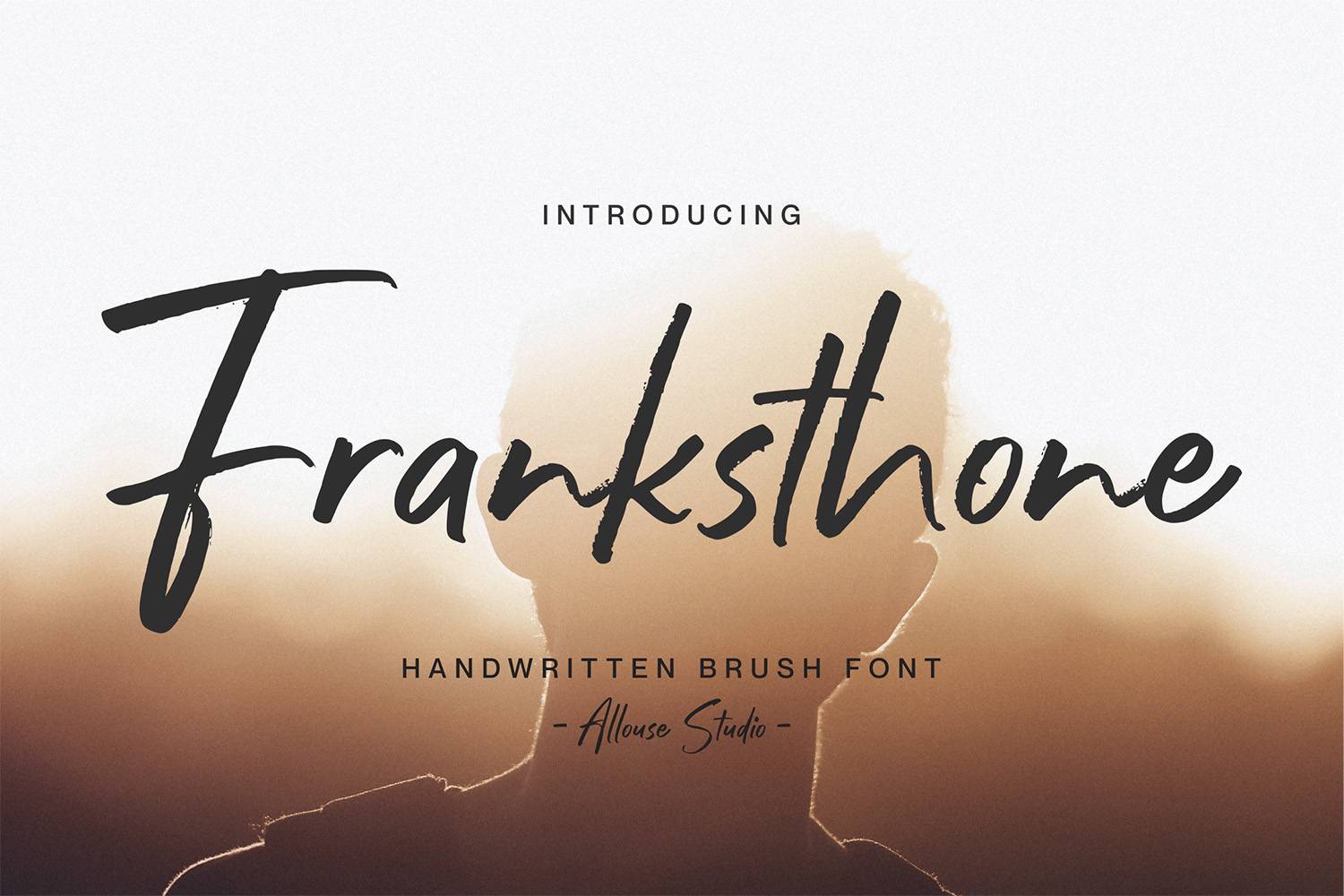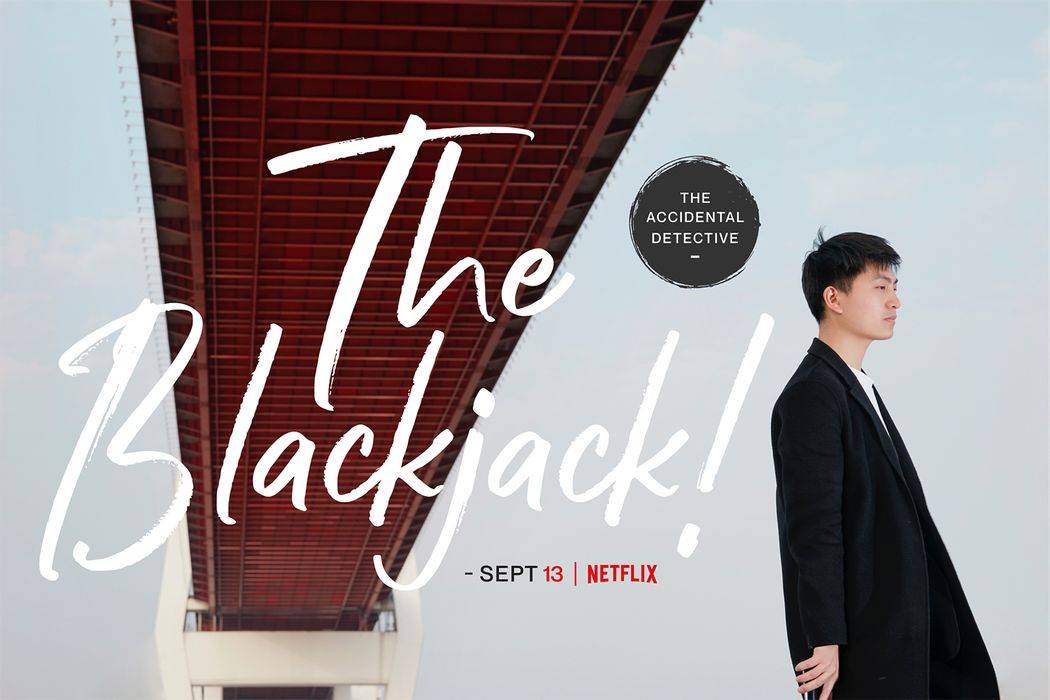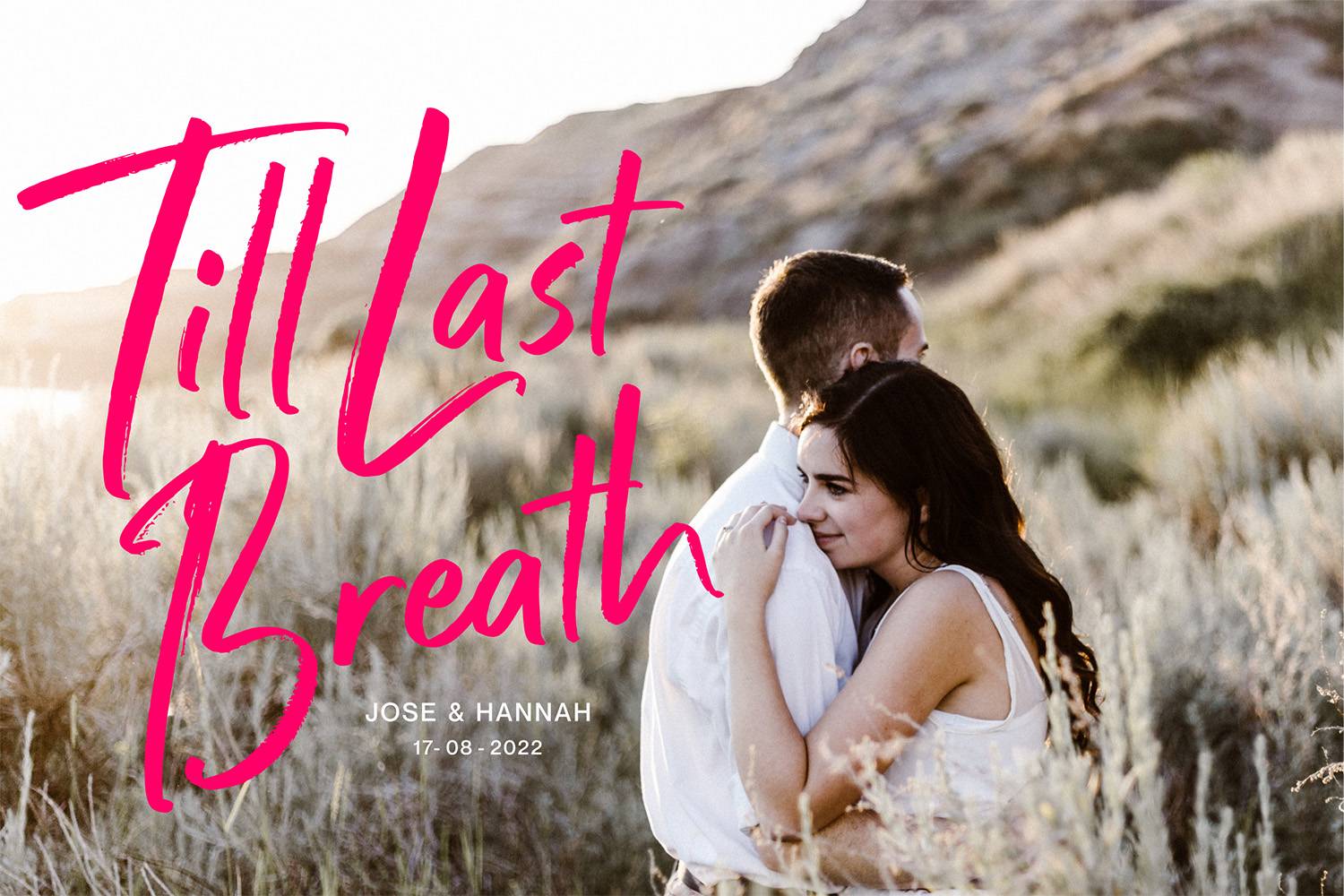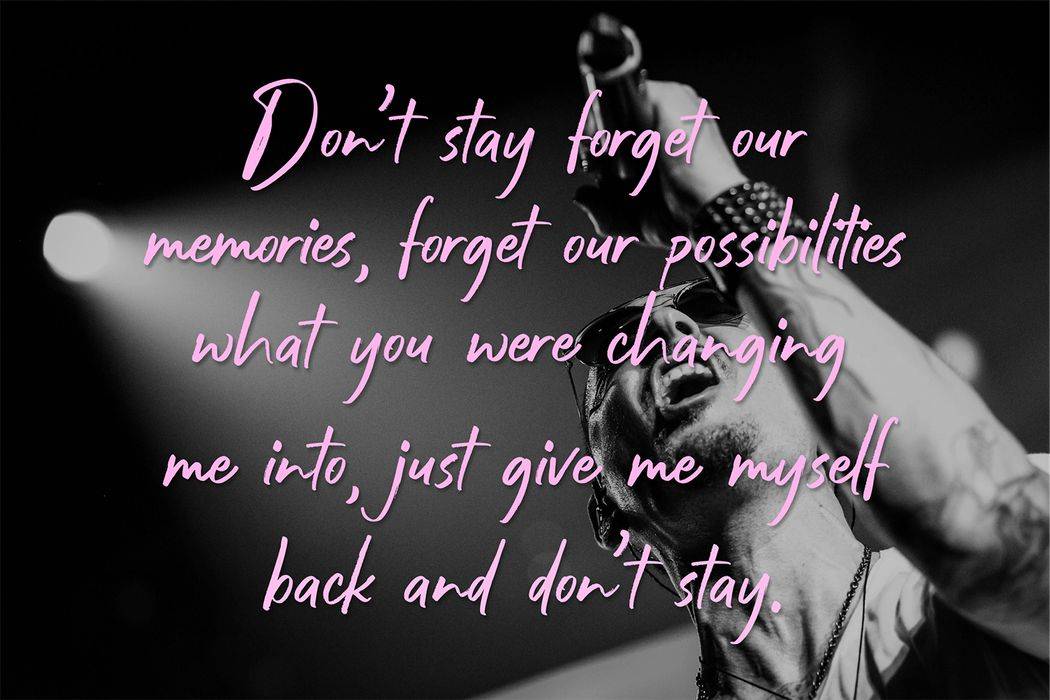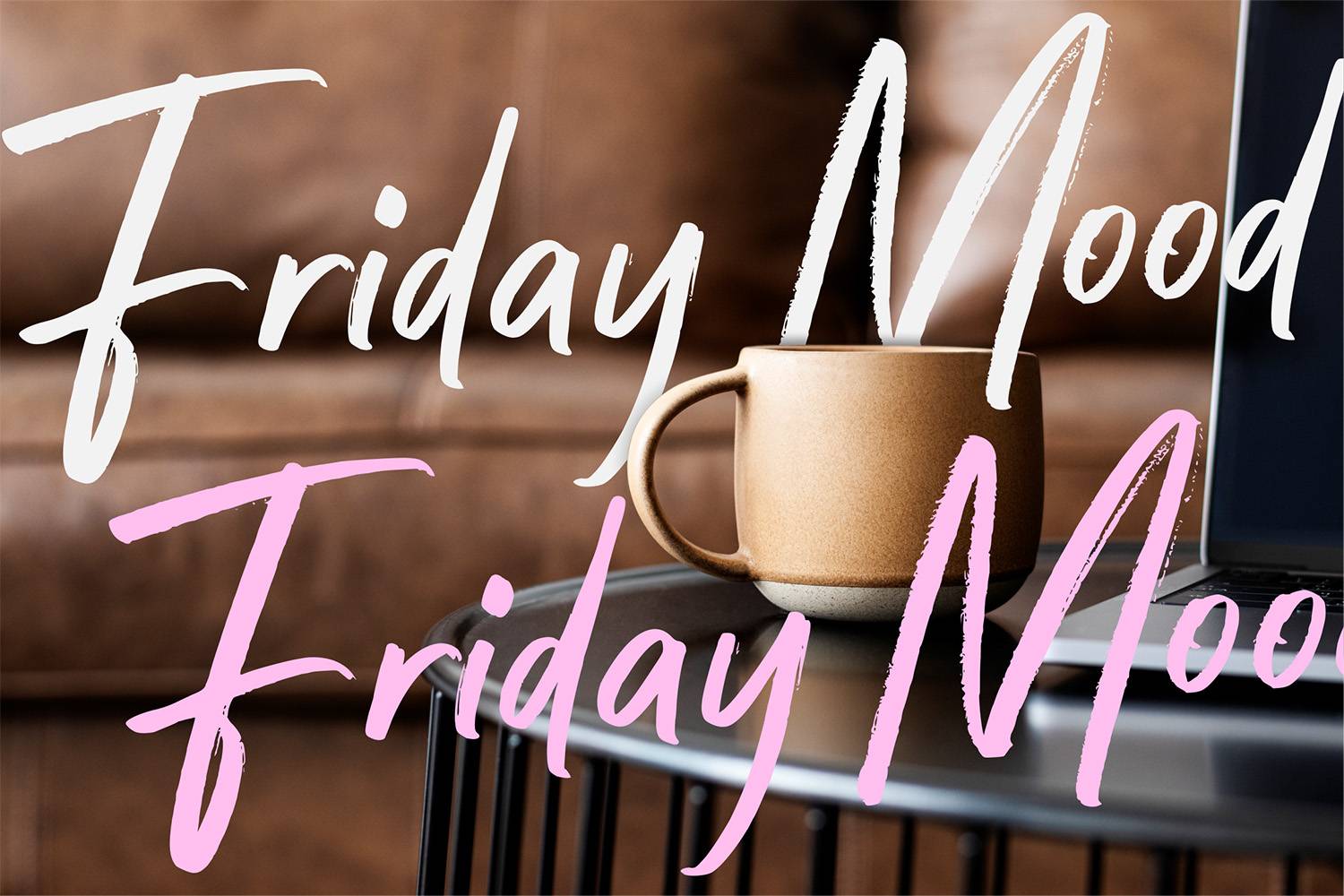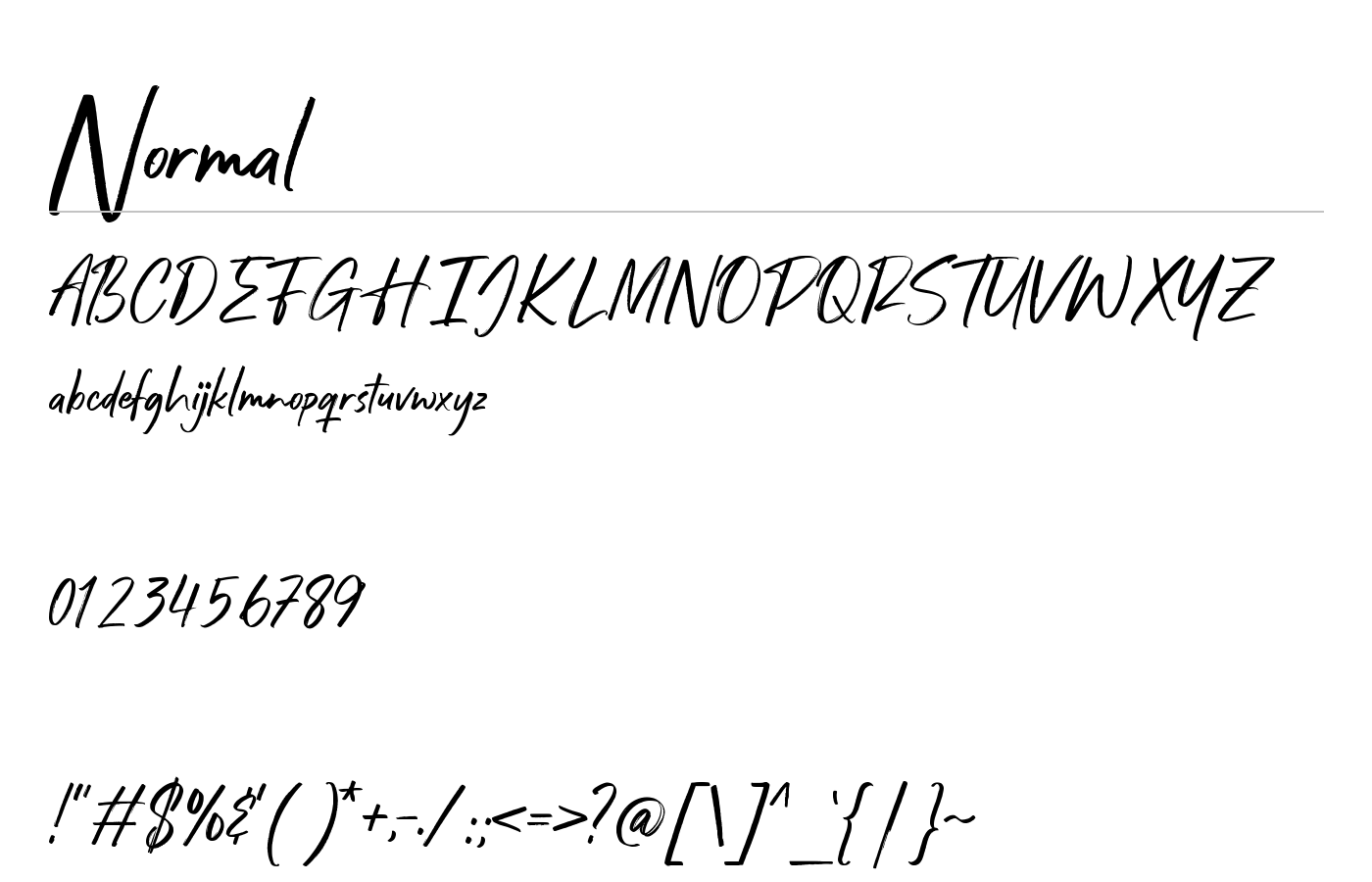
Franksthone is a casual, handwritten script font with a lively, organic feel. Its slender, slightly irregular strokes and tall x-height give it a friendly and approachable personality, making it perfect for creative projects, informal branding, and personalized designs. This font works especially well in logos, social media graphics, and packaging where a natural, expressive touch is desired.
Franksthone Font
About Franksthone Font